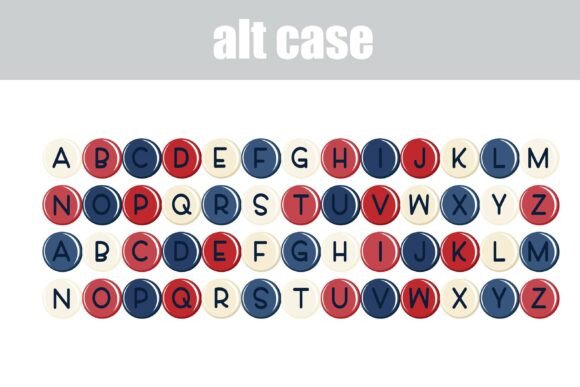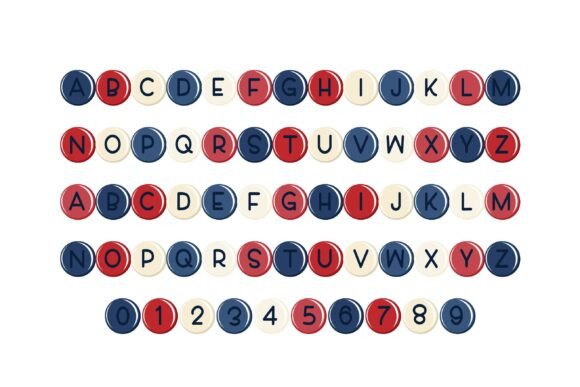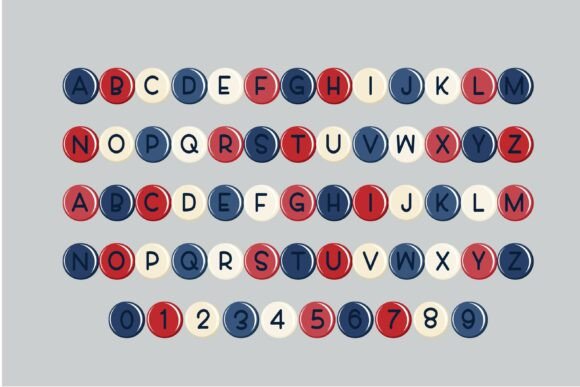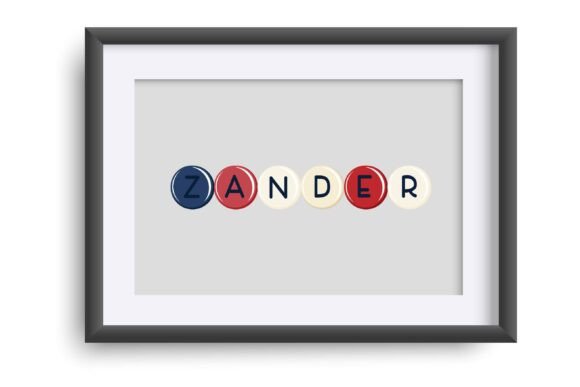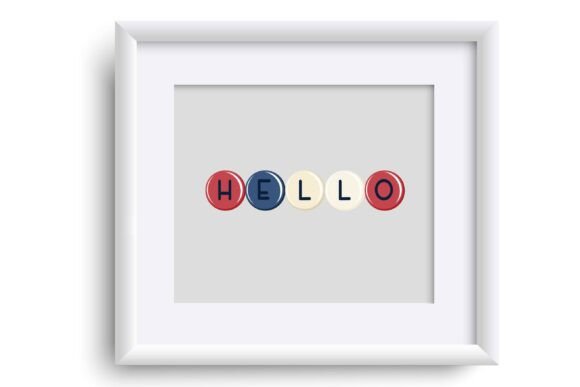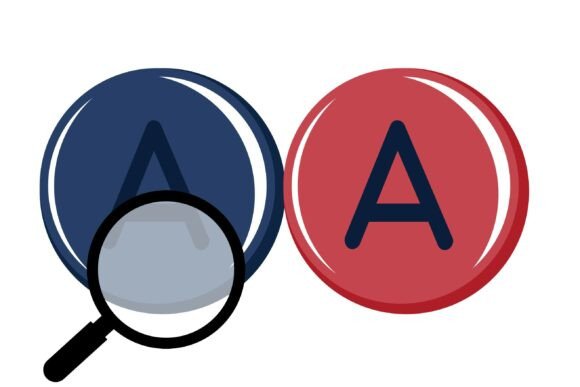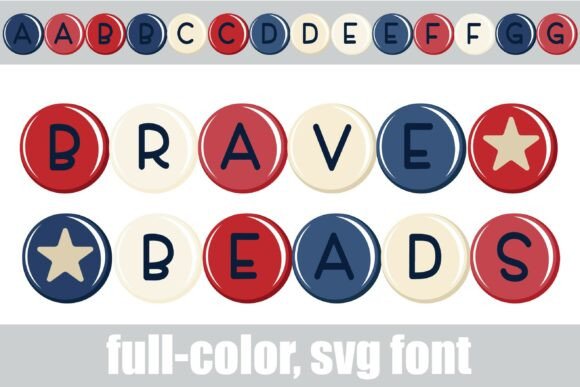
Discover the Vibrant World of Brave Beads Font
Have you ever been working on a design project, and suddenly, you just can’t seem to find the right font? I recall a particularly frustrating moment when I was tasked with creating a colorful logo for a client’s craft business. The design needed to pop, but my usual go-to fonts just weren’t cutting it. That’s when I stumbled upon the Brave Beads Font, and my design woes disappeared instantly! 🎉
A Full-Color Font that’s Full of Personality
Brave Beads Font is a full-color, OpenType font that features rounded, bead-like lettering in American colors. What makes this font truly special is its alt case of alternate colorings for each letter, accessible through your system or Silhouette’s glyph map. This means you can mix and match colors to create unique and eye-catching designs.
Honest Review: The Good and the Quirks
• ✨ Unique, colorful design that’s perfect for crafty projects
• 🌈 Versatile and customizable, with a range of colors and styles to choose from
• 🤔 May appear as black in non-compatible programs, which can be frustrating
• ⚠️ Some programs may not display the font’s color accurately, especially in preview windows
The Designer Inspiration Behind Brave Beads Font
While the true story behind Brave Beads Font remains a mystery, it’s easy to imagine a designer who loves crafting and colorful jewelry. Perhaps they wanted to create a font that would bring a touch of whimsy and fun to designs, while still being versatile and easy to use. Whatever the inspiration, Brave Beads Font is sure to delight designers and crafters alike! 🌟